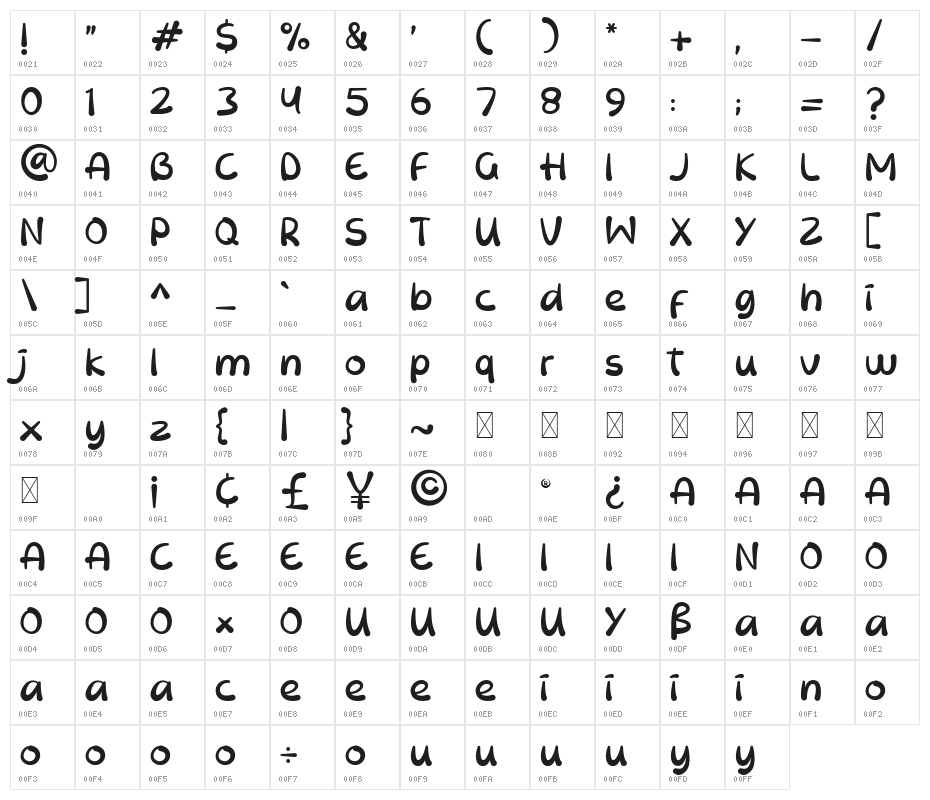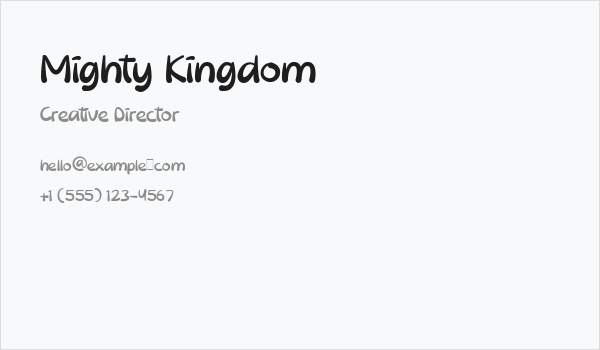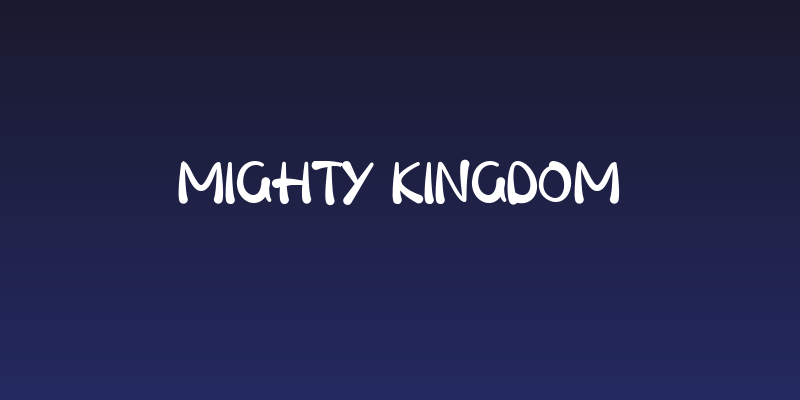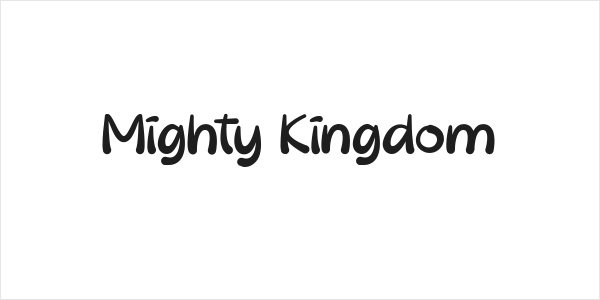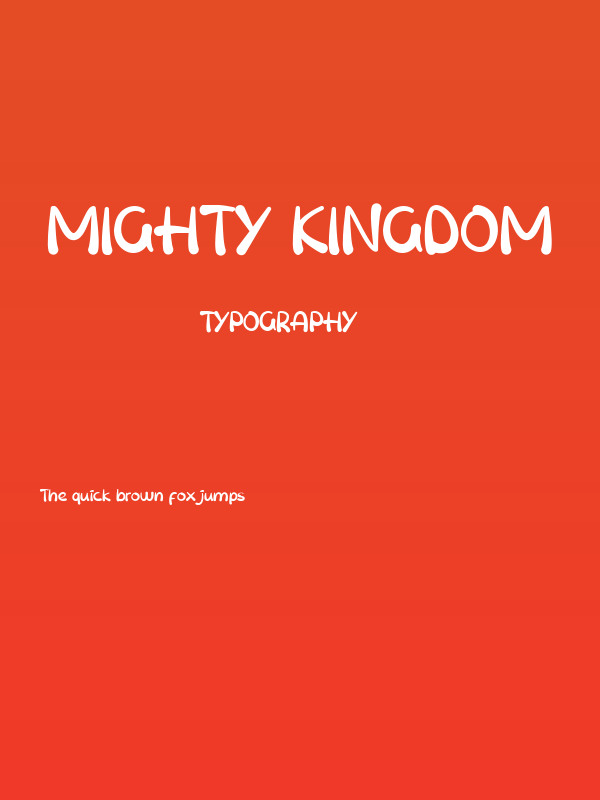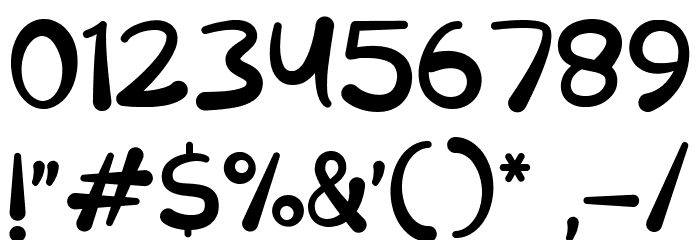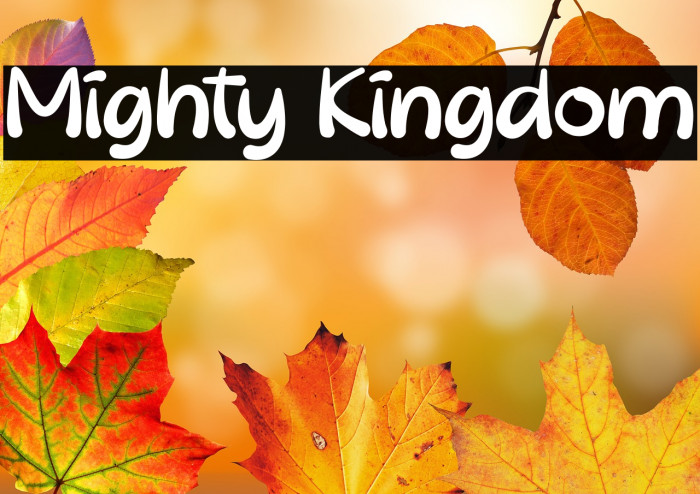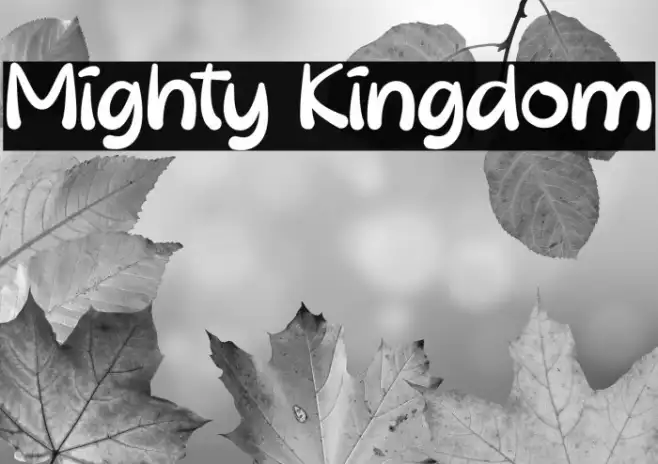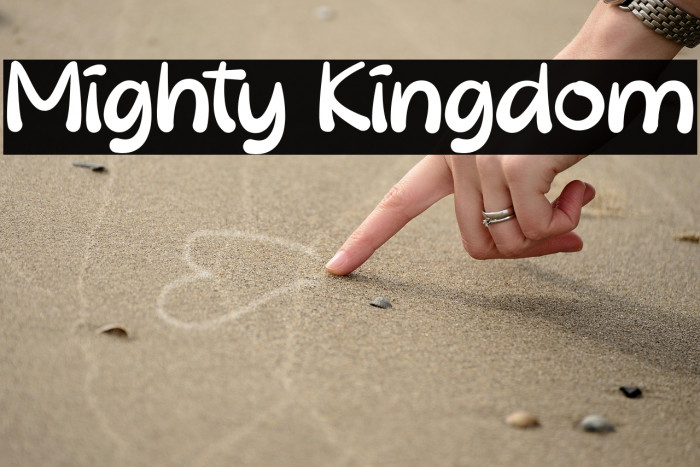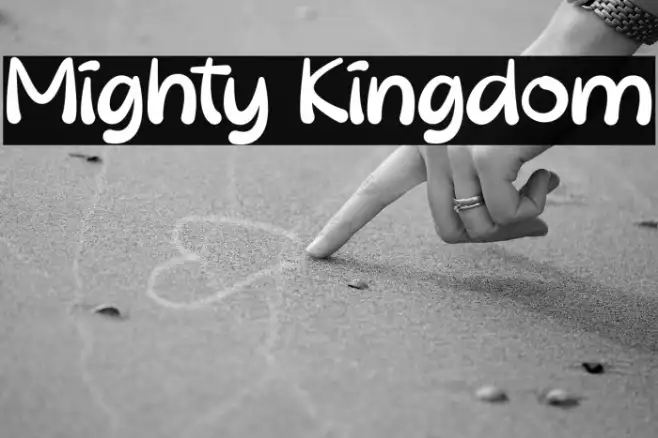
Mighty Kingdom Font
Mighty Kingdom Description
This font features a playful and rounded style, characterized by its bold and smooth curves. The letters have a consistent thickness, giving it a uniform appearance. The uppercase and lowercase letters maintain a friendly and approachable look, making it suitable for informal and fun designs. The numbers and special characters follow the same rounded and bold aesthetic, ensuring cohesion across all glyphs. Its overall design is reminiscent of handwriting, yet it maintains a structured and legible form, making it versatile for various applications.
| Proposed Projects | Ideal for children's books, playful branding, casual invitations, and social media graphics. |